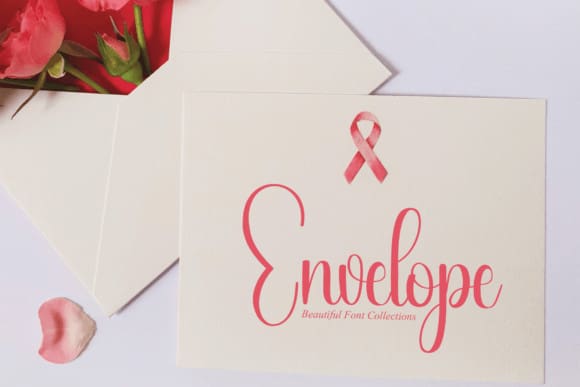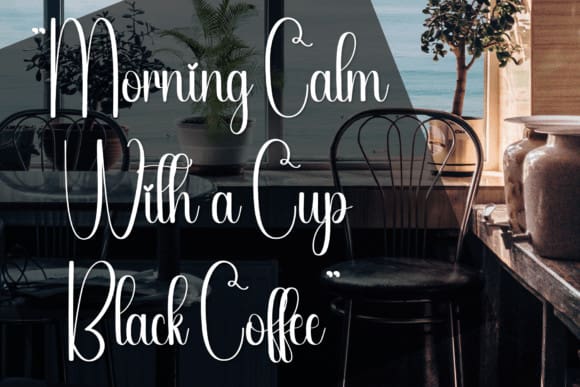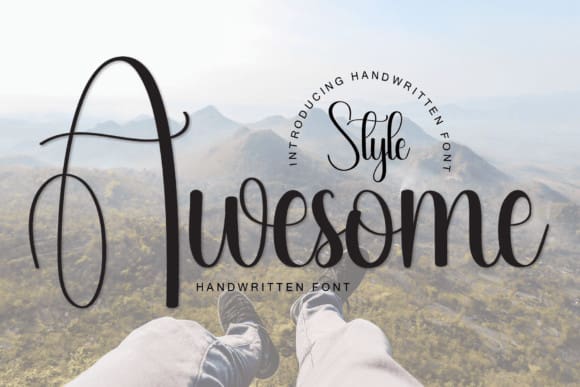
Awesome Style Script Font
Awesome Style Script Font, is a neat and casual handwritten font. Incredibly versatile, this font will be suitable for a wide spectrum of applications. Add it to each of your creative ideas and notice how it makes them stand out!